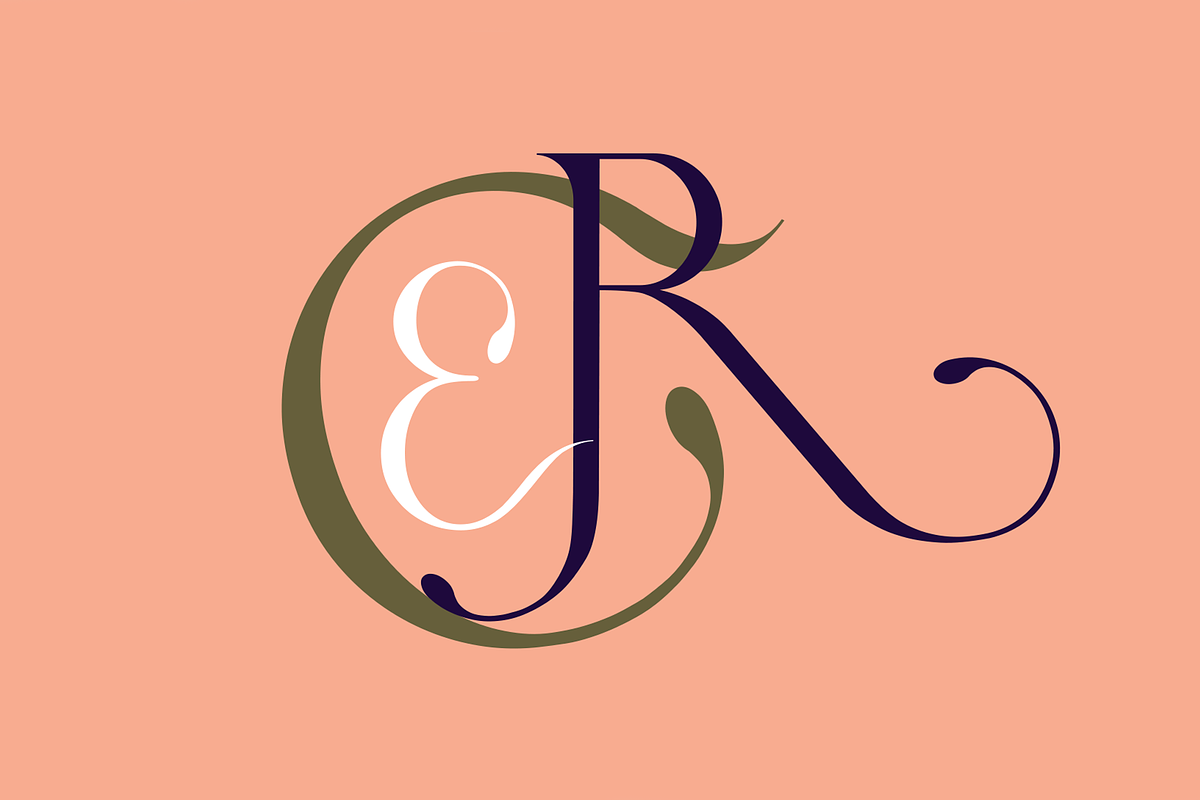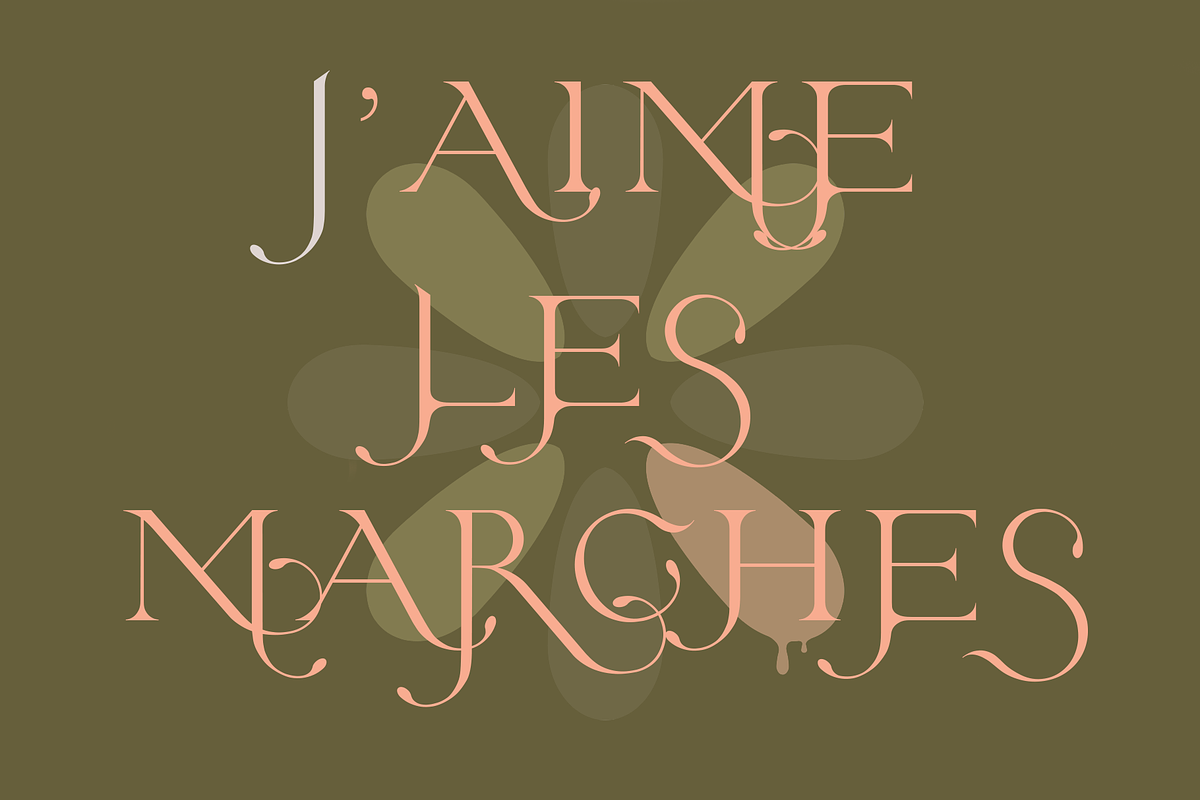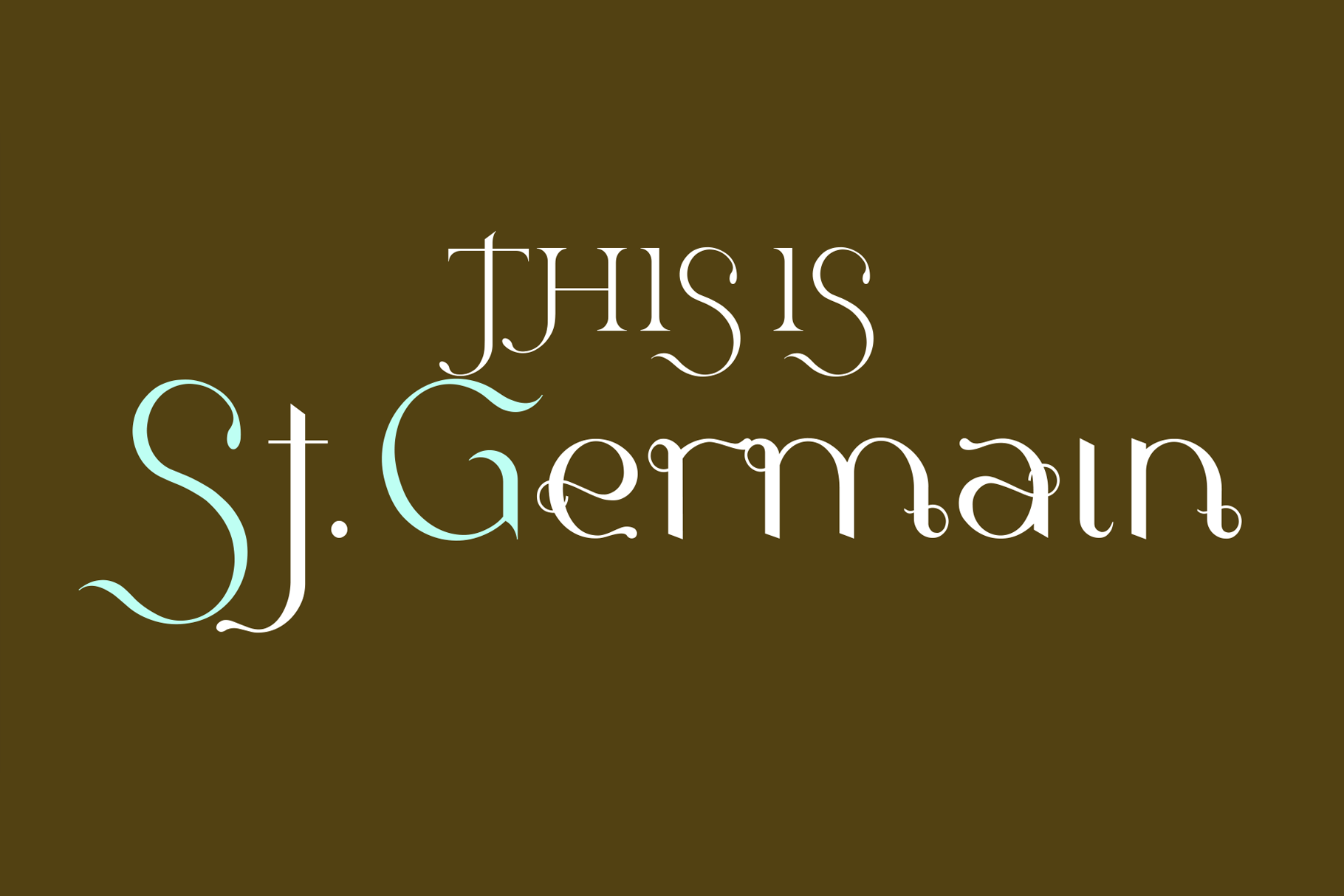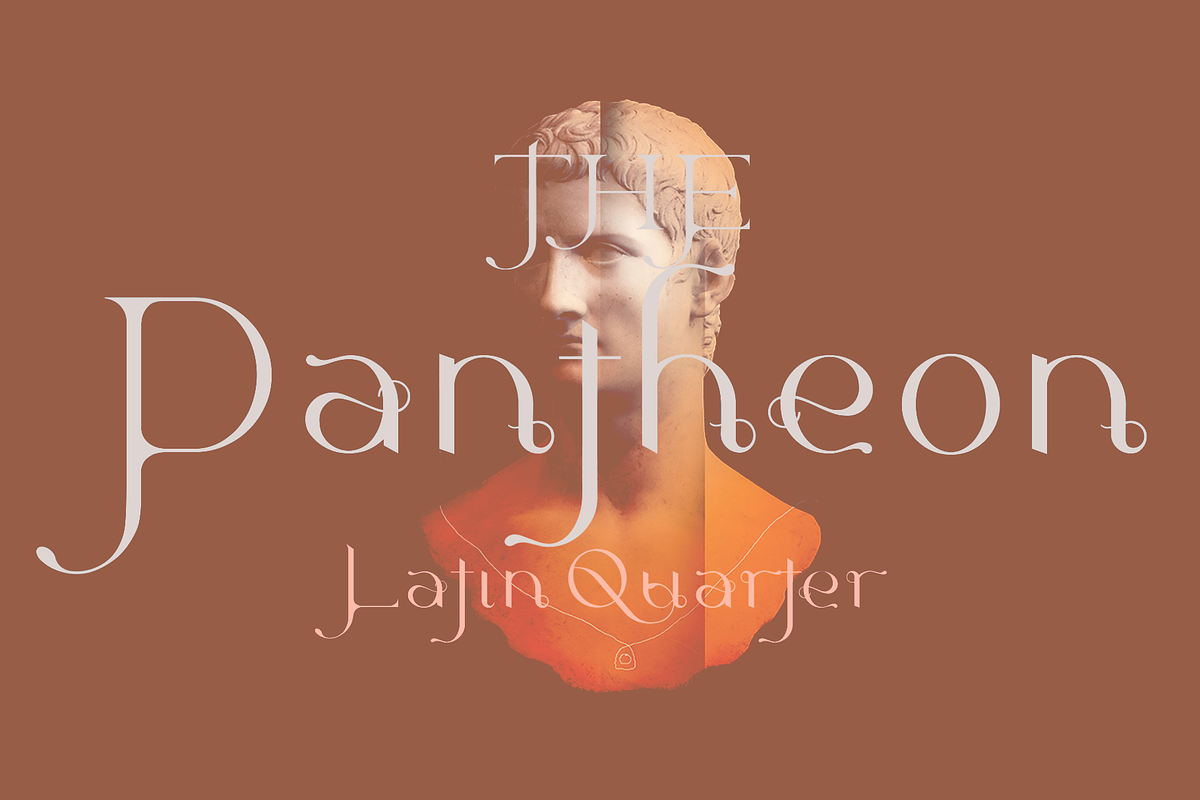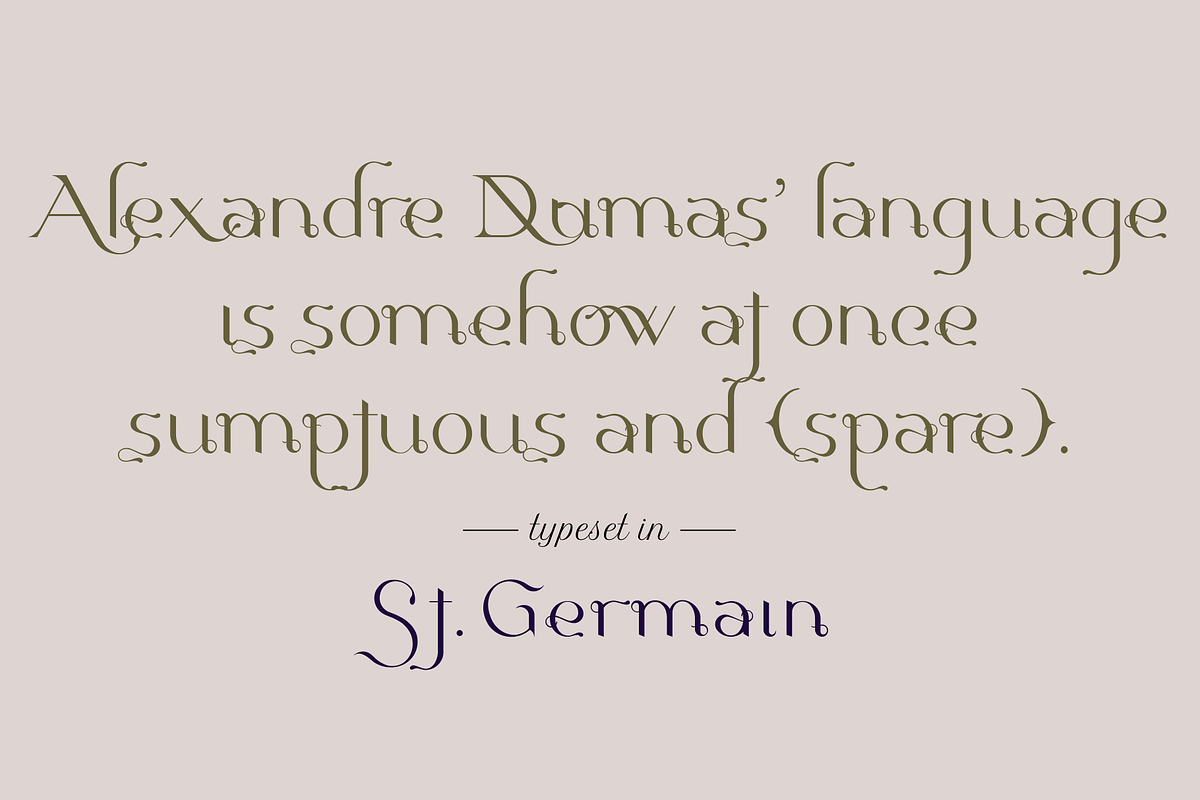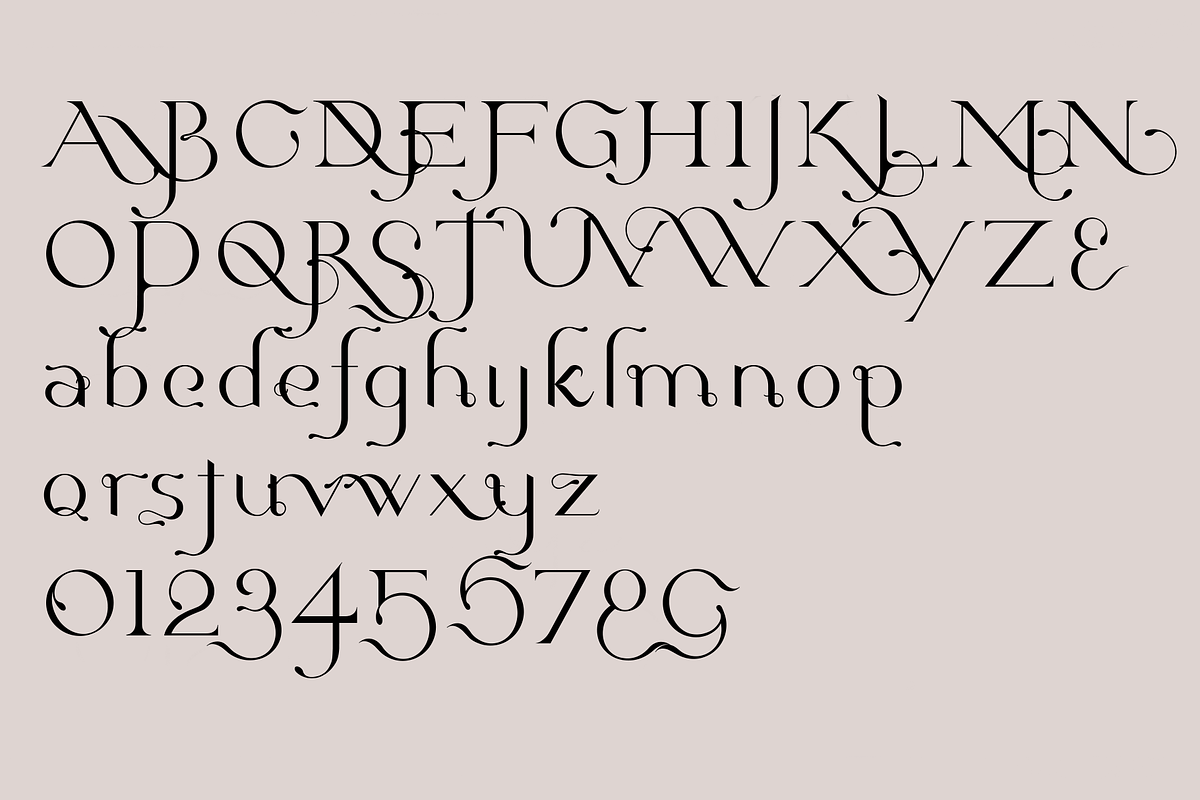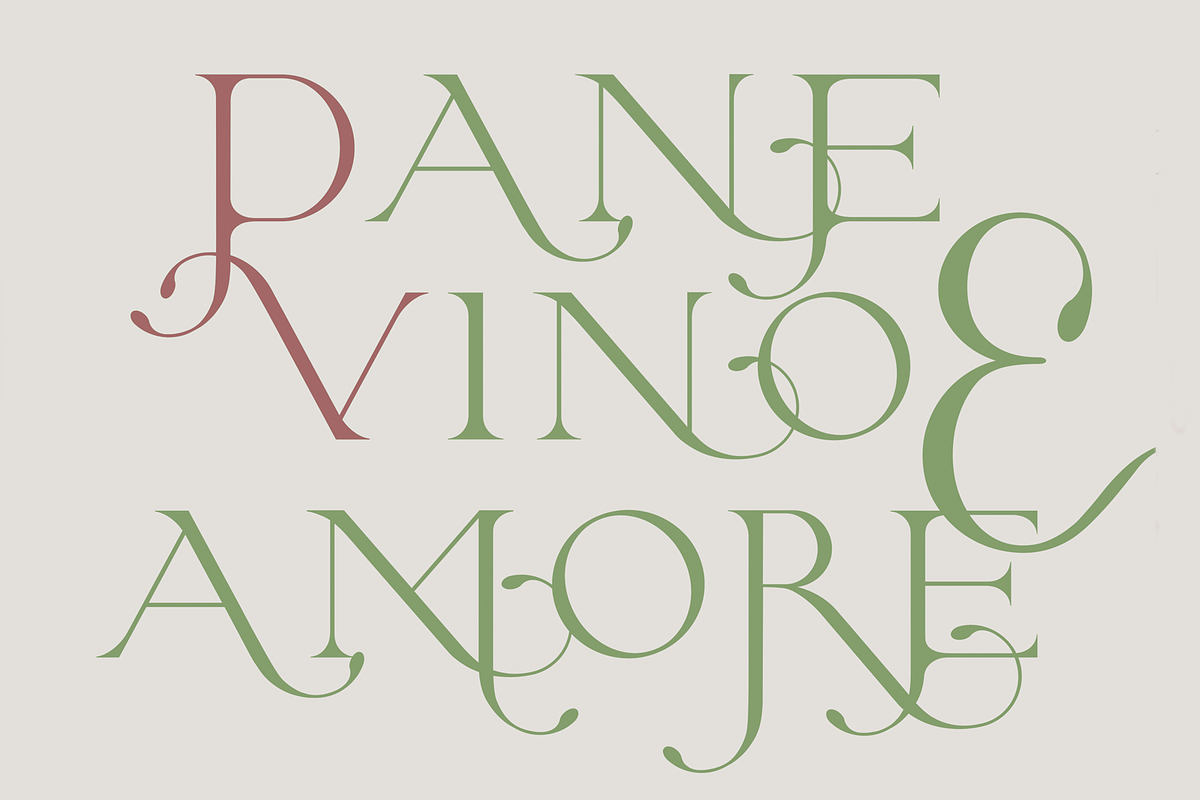
St.Germain. Beautiful serif font
St.Germain is a beautifully flamboyant and luxurious new font for designers from LostandFoundry. This typeface is overflowing with flair and character and even though it has oversized ascenders and descenders in capitals, it can still be set in all caps, and not just caps and lowercase.
Use St.Germain when you need a font with great personality and class for your design projects that suit this font brief.
St.Germain is wonderful when used in wedding designs, book covers, packaging designs, signage and of course headlines, titles and small amounts of text. Or online in websites, blogs, vlogs, Youtube creator titles and social media post titles. St.Germain comes in 2 weights and supports French, German and other European languages